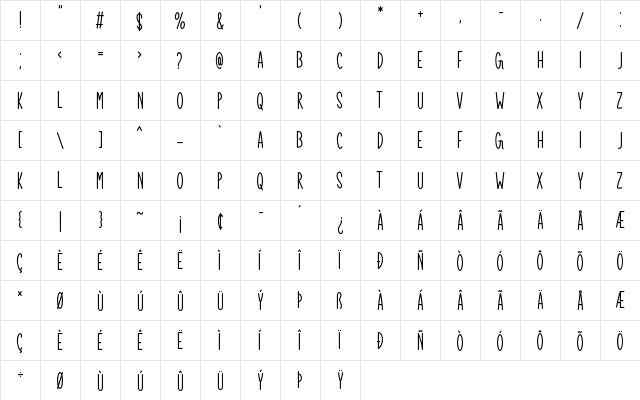
Autumn Arbor Regular
Design Context for Autumn Arbor Typeface
Autumn Arbor offers clean, dependable letterforms without strong stylistic allegiance, making it a practical choice for designers who need flexibility.
Pro Tip: Use Autumn Arbor in both headline and body roles to test its range before committing to a single application.